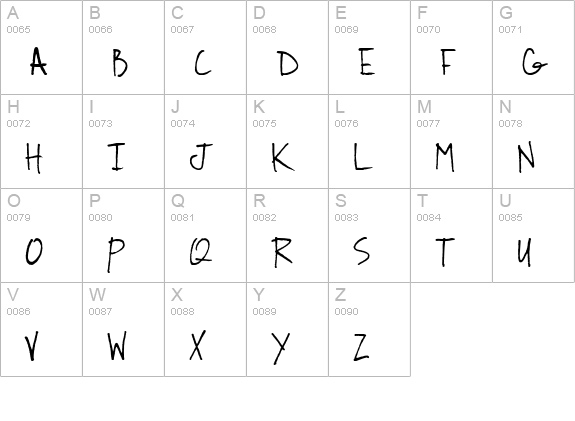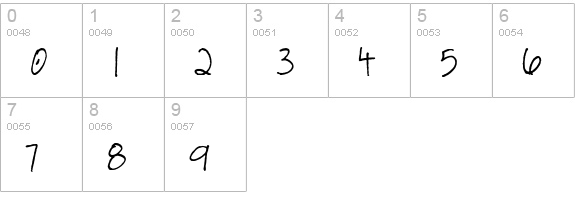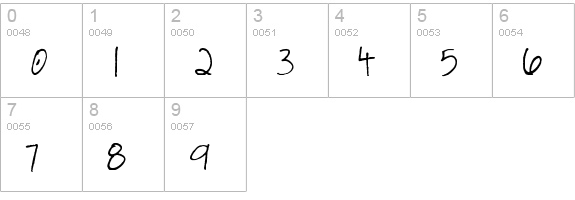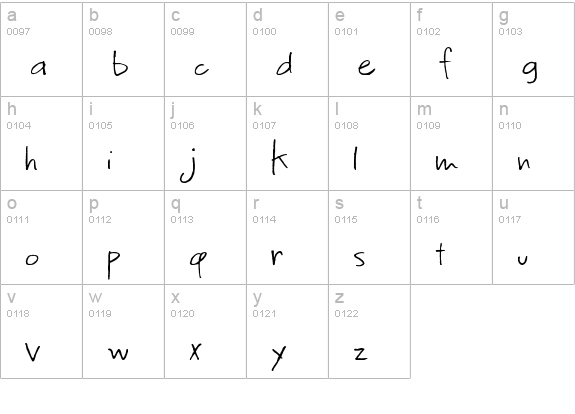
CK Footnote Font Details
CK Footnote is a stylish and sophisticated font that is perfect for adding a touch of elegance to your designs. With its clean lines and modern appeal, this font is ideal for use in various projects, from editorial layouts to branding materials. The sleek typography of CK Footnote exudes professionalism and class, making it a versatile choice for designers looking to make a statement. What's even better is that CK Footnote is available for free download at FontsMarket.com. This means you can easily access this beautiful font and incorporate it into your projects without any cost. So why wait? Enhance your designs with the timeless charm of CK Footnote today.